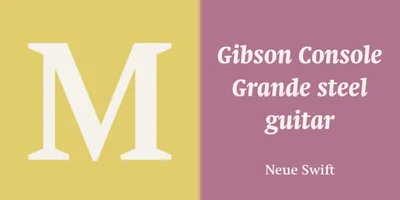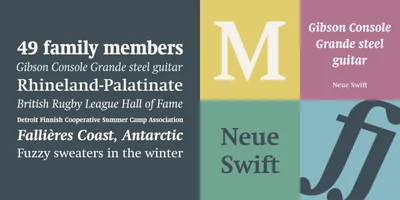
Blanco vs Neue Swift
Blanco and Neue Swift are both serif typefaces sharing a editorial foundation. Where Blanco leans modern, elegant, Neue Swift brings transitional, minimal. Compare which suits your Editorial project.
| Feature | Blanco | Neue Swift |
| Source | Milieu Grotesque | Linotype |
Recommended: Blanco
- modern, elegant design character
- Suited for Magazines and Web
- From milieu-grotesque
Consider: Neue Swift
- transitional, minimal design character
- Suited for Corporate and Newspapers
- From linotype